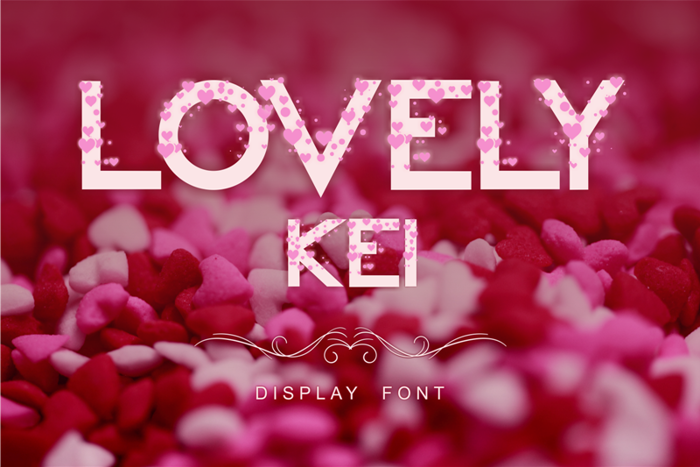
Lovely Kei Font
Lovely Kei is a new font display with a frothing feel full of romantic love icons, perfect for your extraordinary project this month.